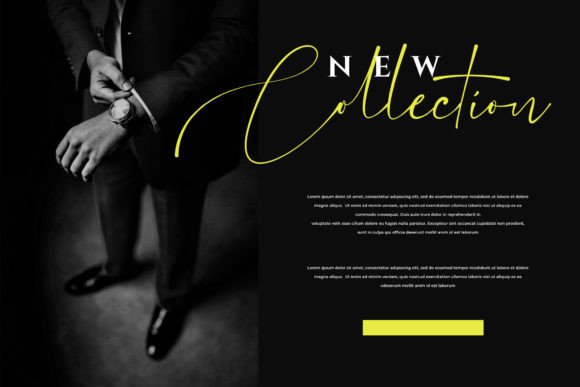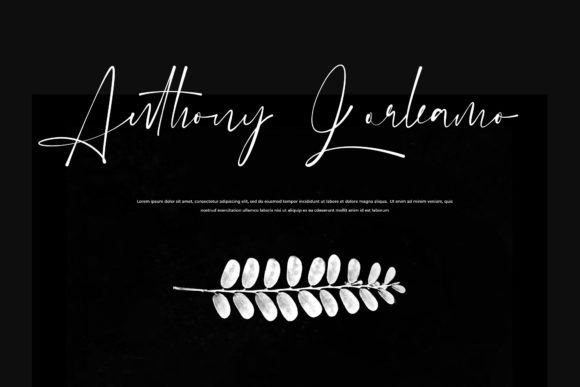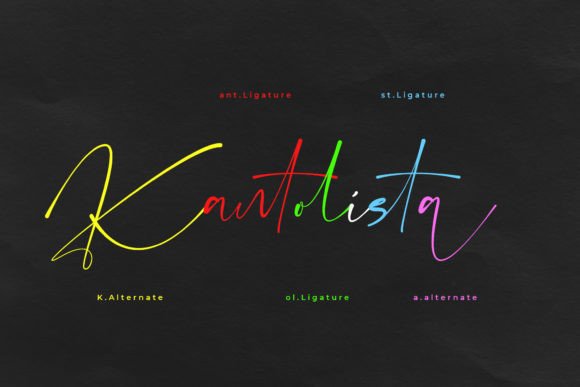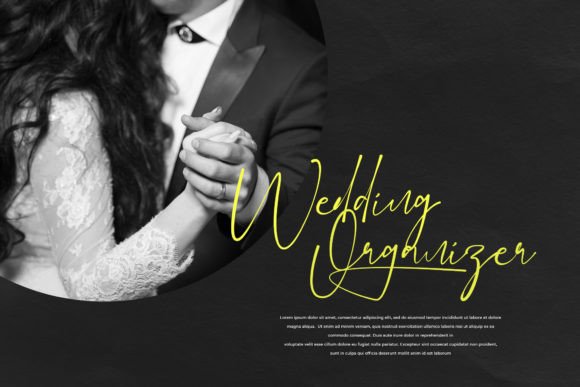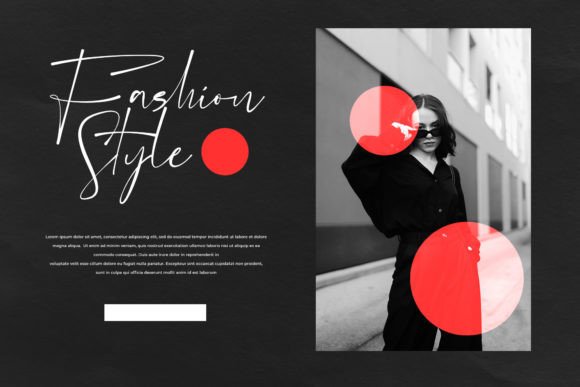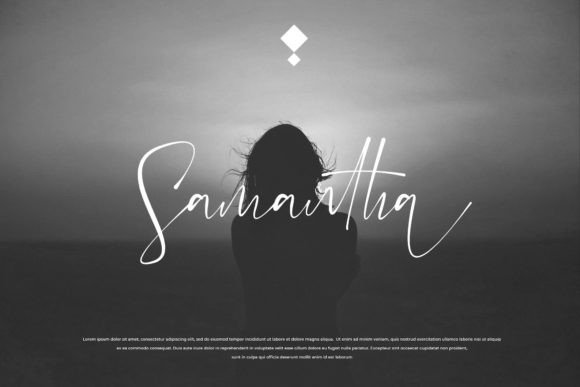
Introduction to Kantolista Font Font
Fonts play a crucial role in design, and the Kantolista Font font is a typeface that brings both character and versatility to any project. Whether you’re working on a branding project, a website, or a print design, the Kantolista Font font offers a unique style that can elevate your work.
Kantolista is a signature font with a natural style.
It is suitable for social media, logotypes, advertisements, branding, wedding themes, and more .
Key Features of Kantolista Font Font
Why Choose Kantolista Font Font?
The Kantolista Font font is more than just a typeface – it’s a design tool that helps you communicate your message with style and clarity. Its unique character set and versatile design make it suitable for a wide range of applications, from elegant invitations to bold headlines.
With its carefully crafted letterforms and balanced proportions, the Kantolista Font font ensures readability and visual appeal across all mediums.
What makes Kantolista Font font special?
The Kantolista Font font stands out with its unique design, exceptional readability, and versatility across various design applications.